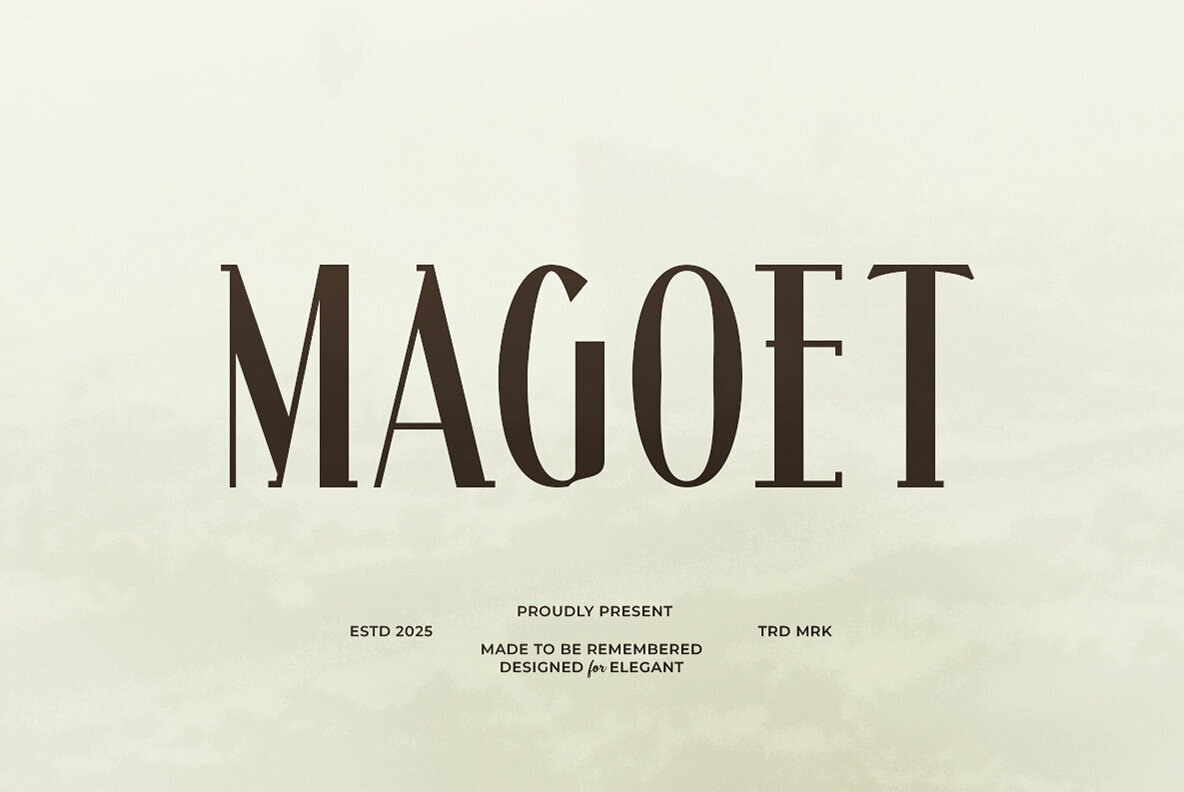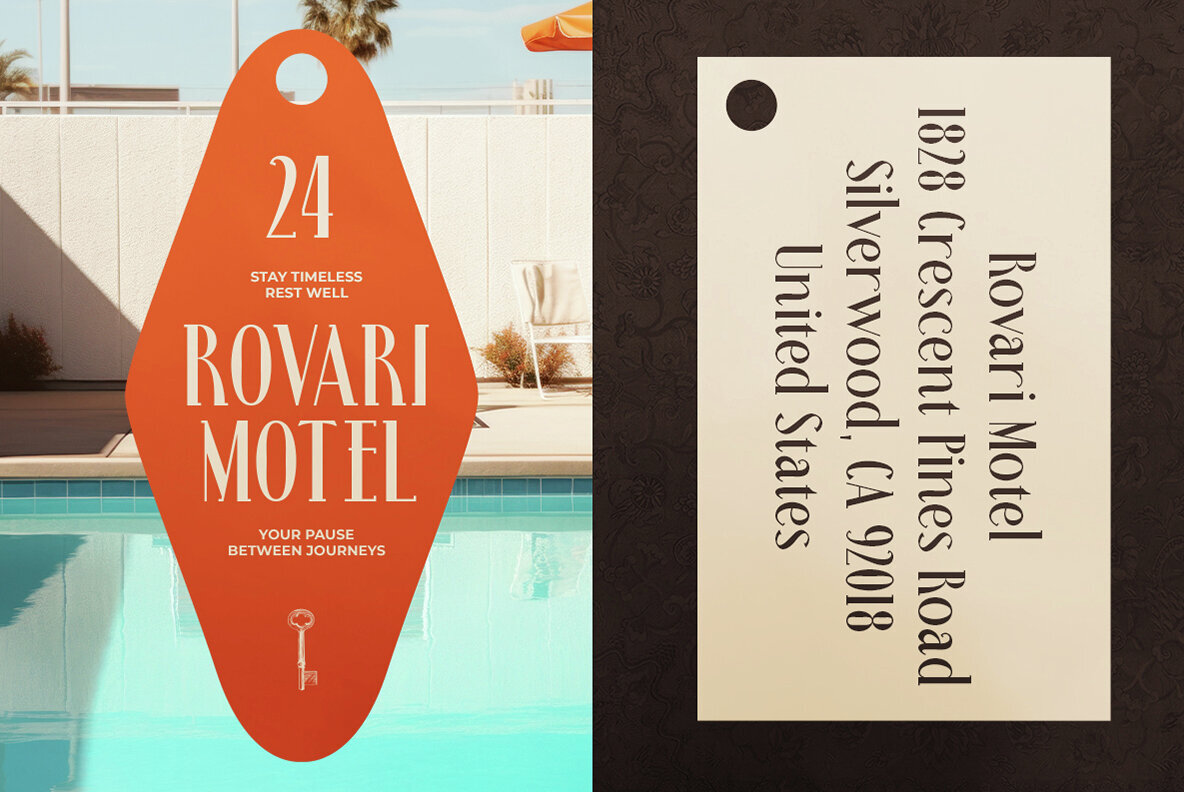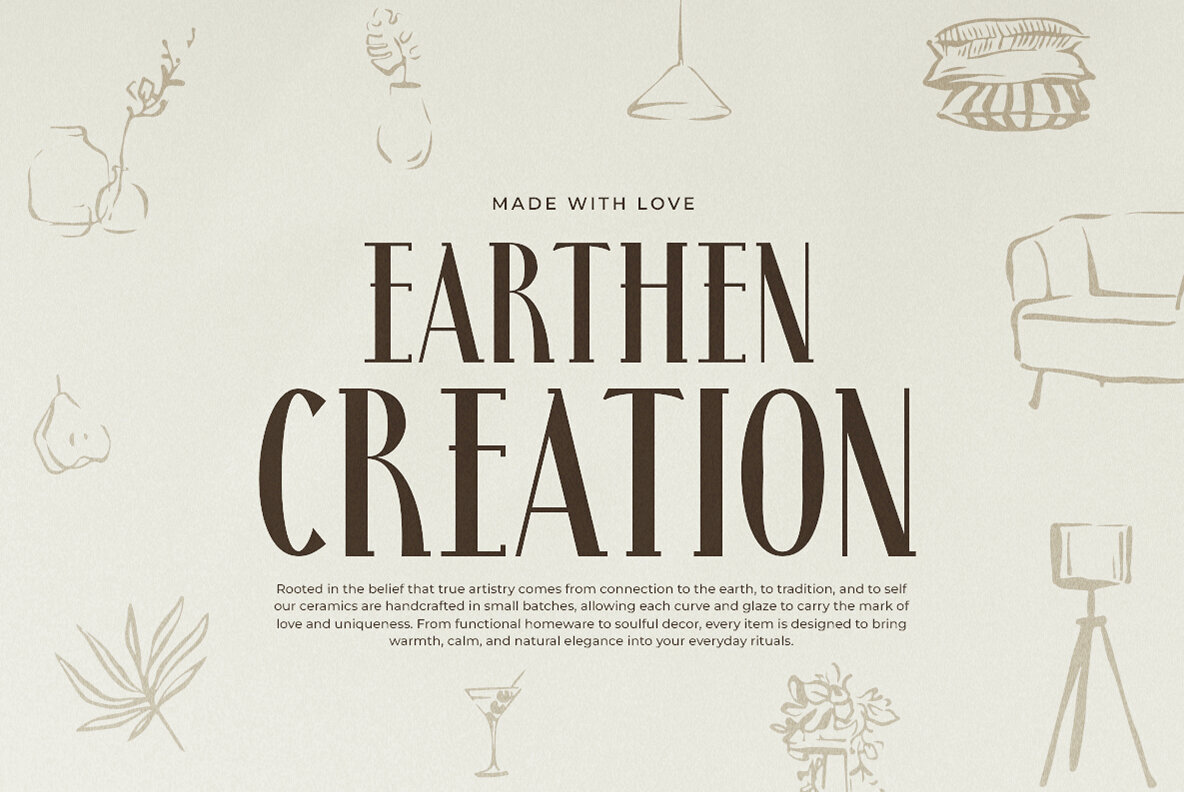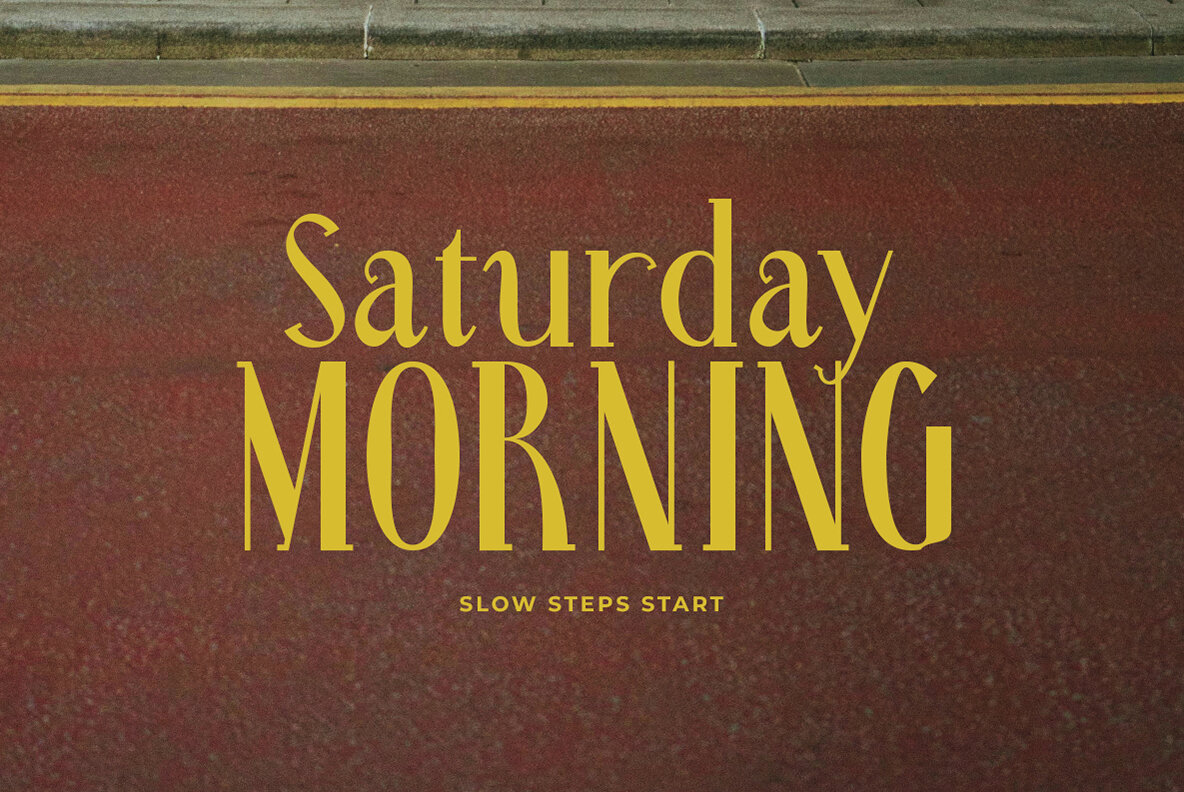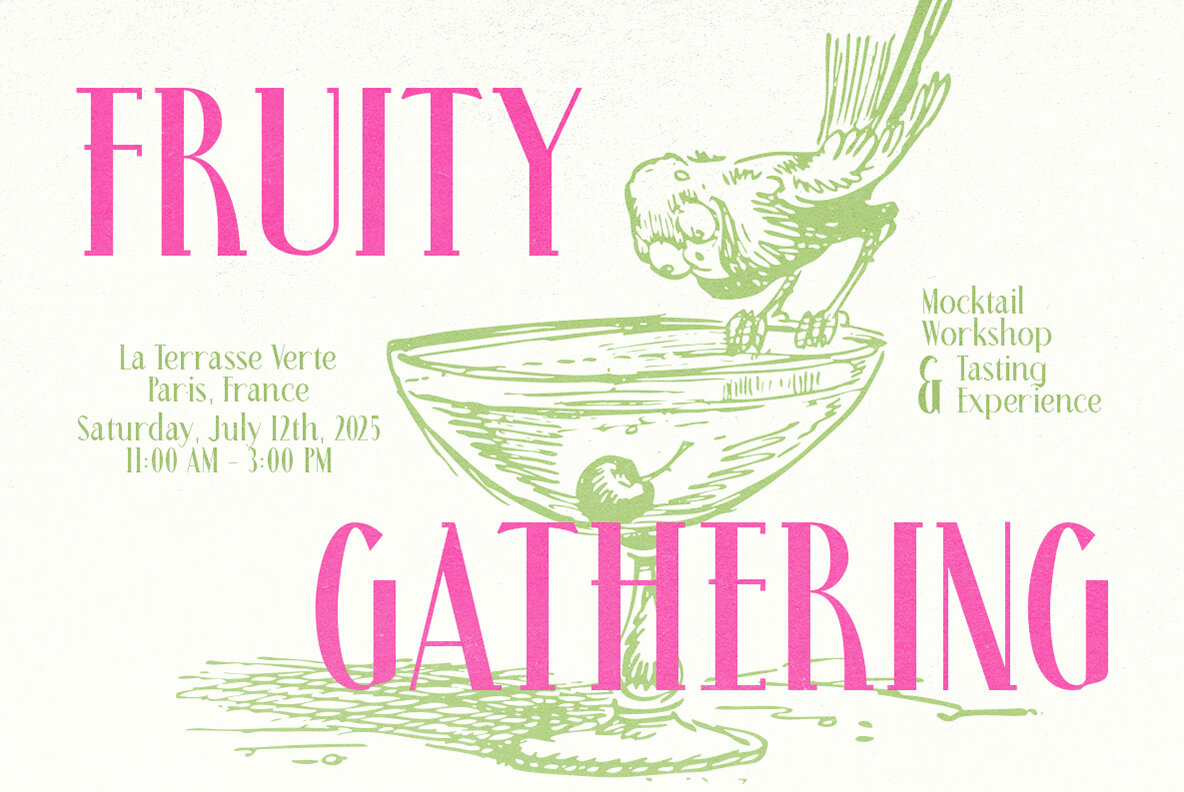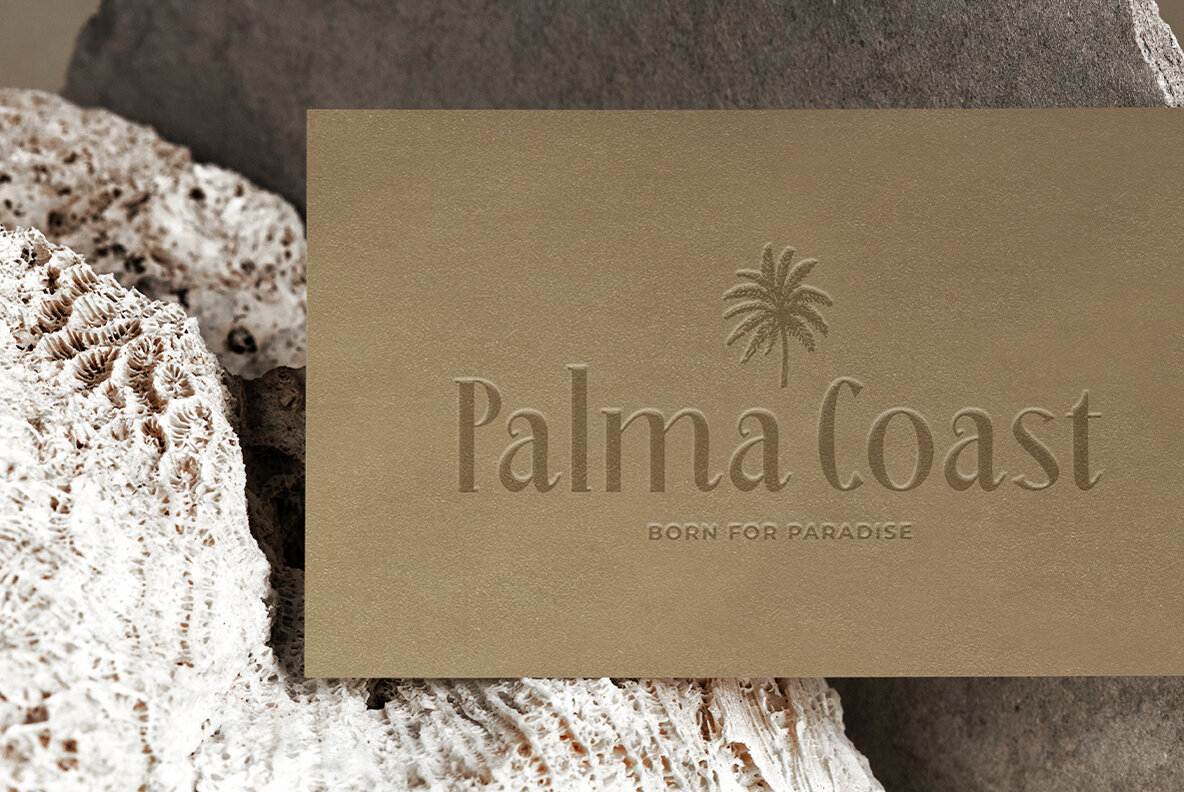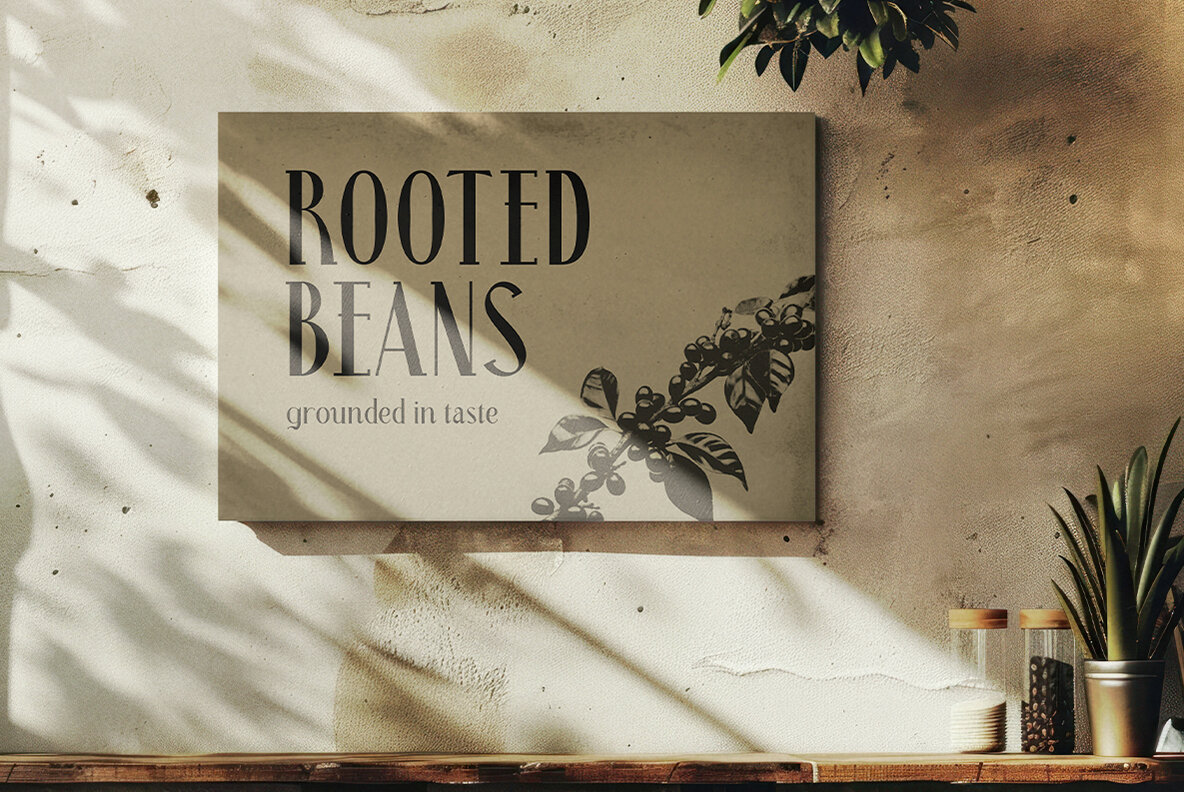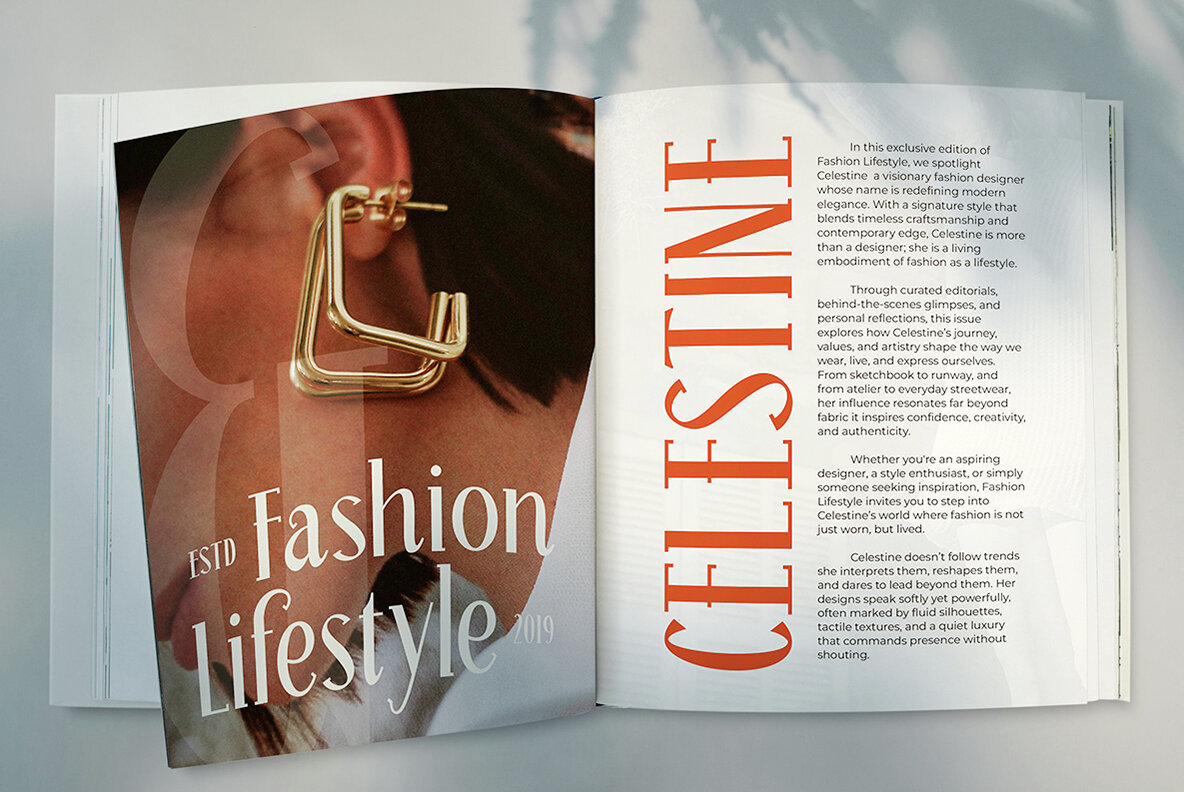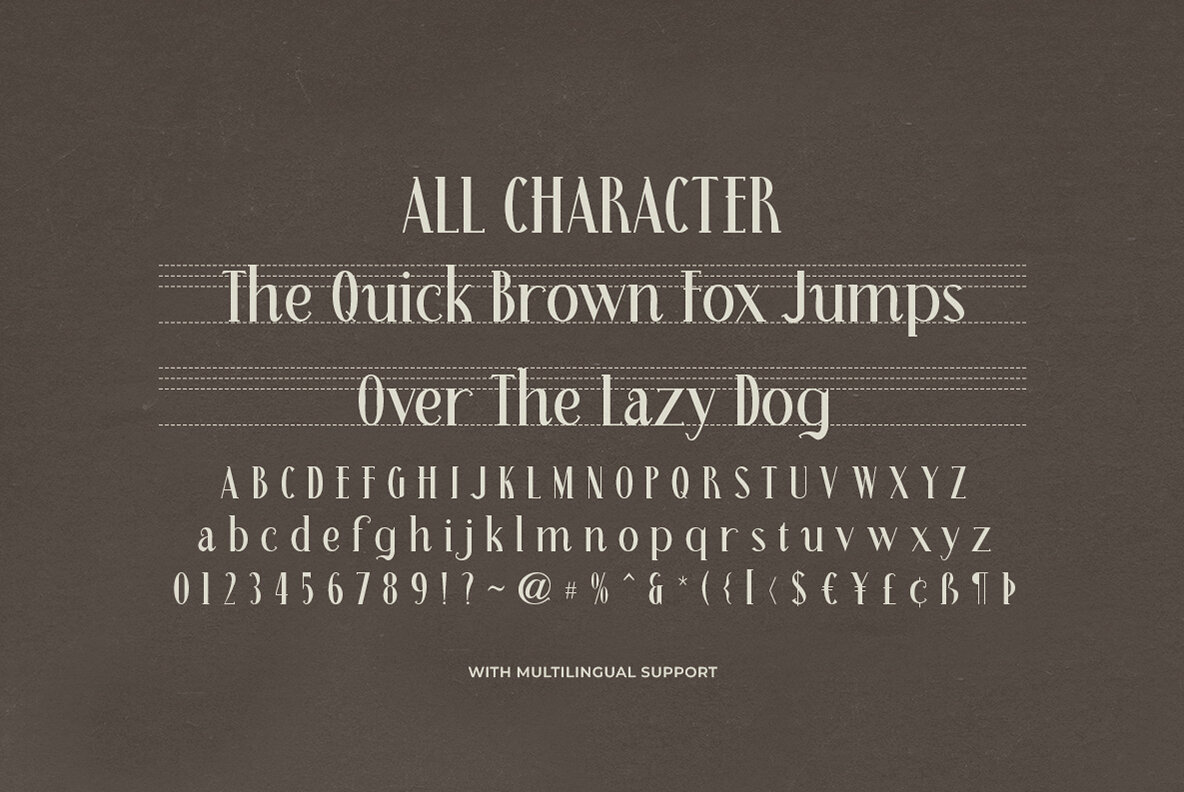
Magoet Font
Magoet Regular
Introducing Magoet, a timeless serif typeface that beautifully captures the elegance and charm of vintage typography from the iconic 70s. Perfectly suited for luxury branding, editorial layouts, and standout headlines, this font brings a refined sophistication to every design. Its classic yet bold character enhances high-end fashion logos, stylish magazine covers, and eye-catching displays. Elevate your designs with Magoet's seamless blend of heritage and modern elegance, ensuring your brand remains unforgettable.Magoet: The Heritage Serif Typeface